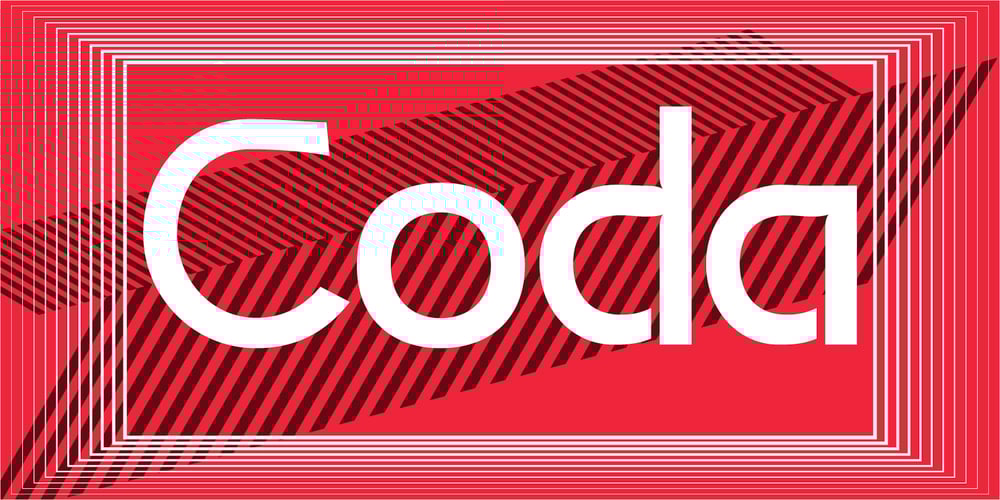
P22 Coda Font Family was designed by Torleiv Sverdrup and published by P22 Type Foundry. P22 Coda contains 3 styles and family package options. Coda Pro is a simple but decorative and controlled sans serif design. Coda literally means ‘tail’ (Italian, from latin cauda) and refers to the way the letters h, m and n stretch below the writing line towards the end of a sentence or before a final stop. Coda Pro is an elegant and contemporary font suited for display purposes.